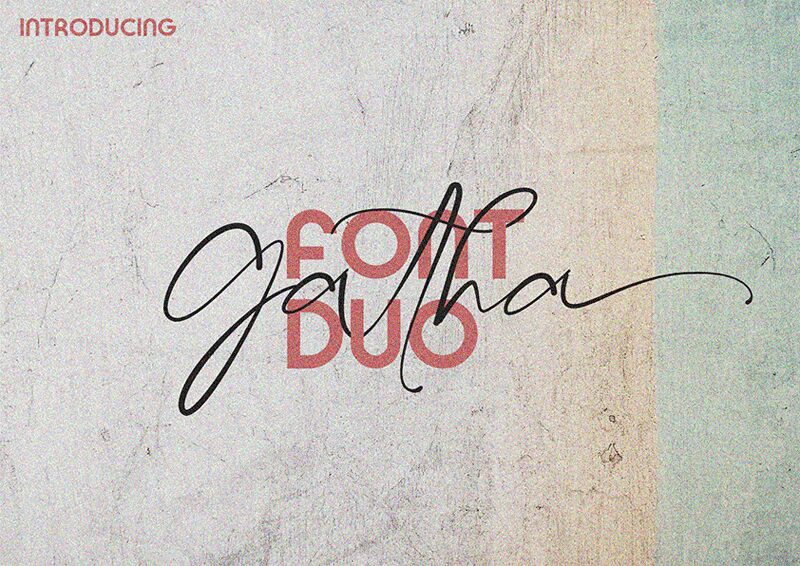
Gatha Script font is a signature typeface designed by Zelow Type.
Gatha is a playful font duo that includes a signature script and elegant sans already matched up and ready to be used together for your next design!
Designed by Khairunnas from Zelow Type 2021